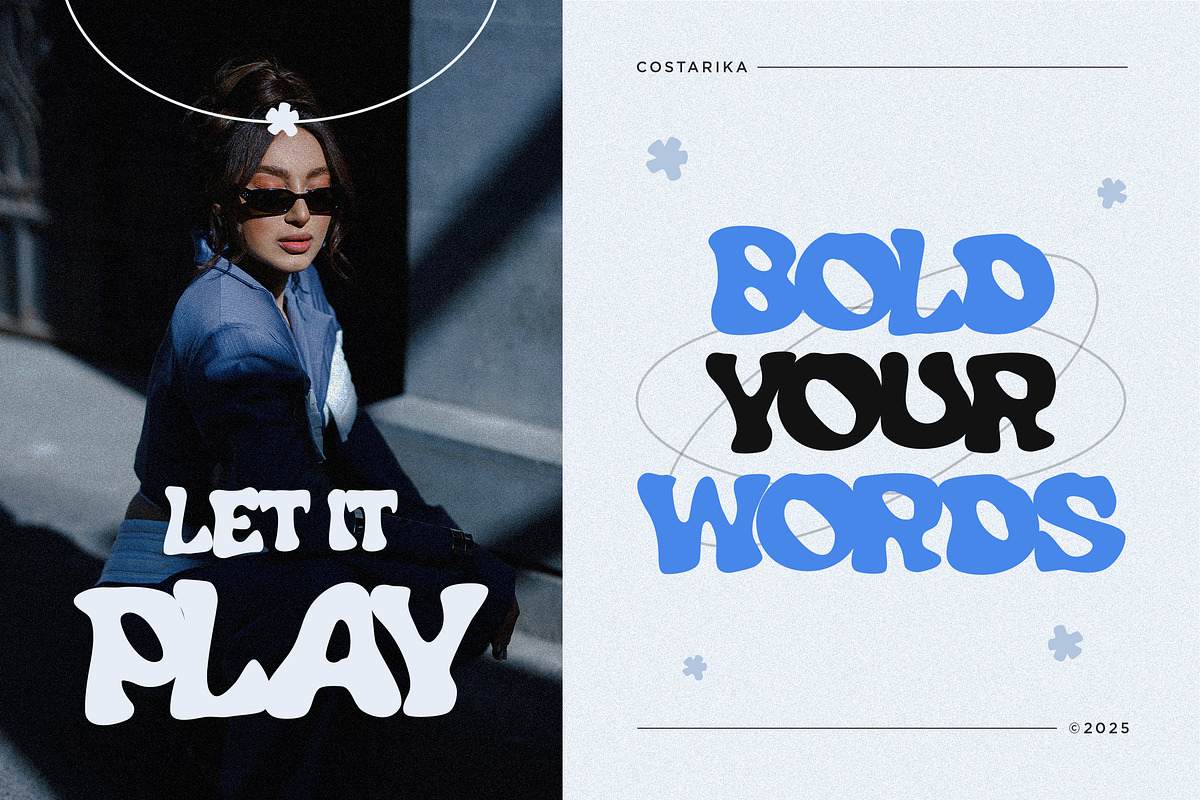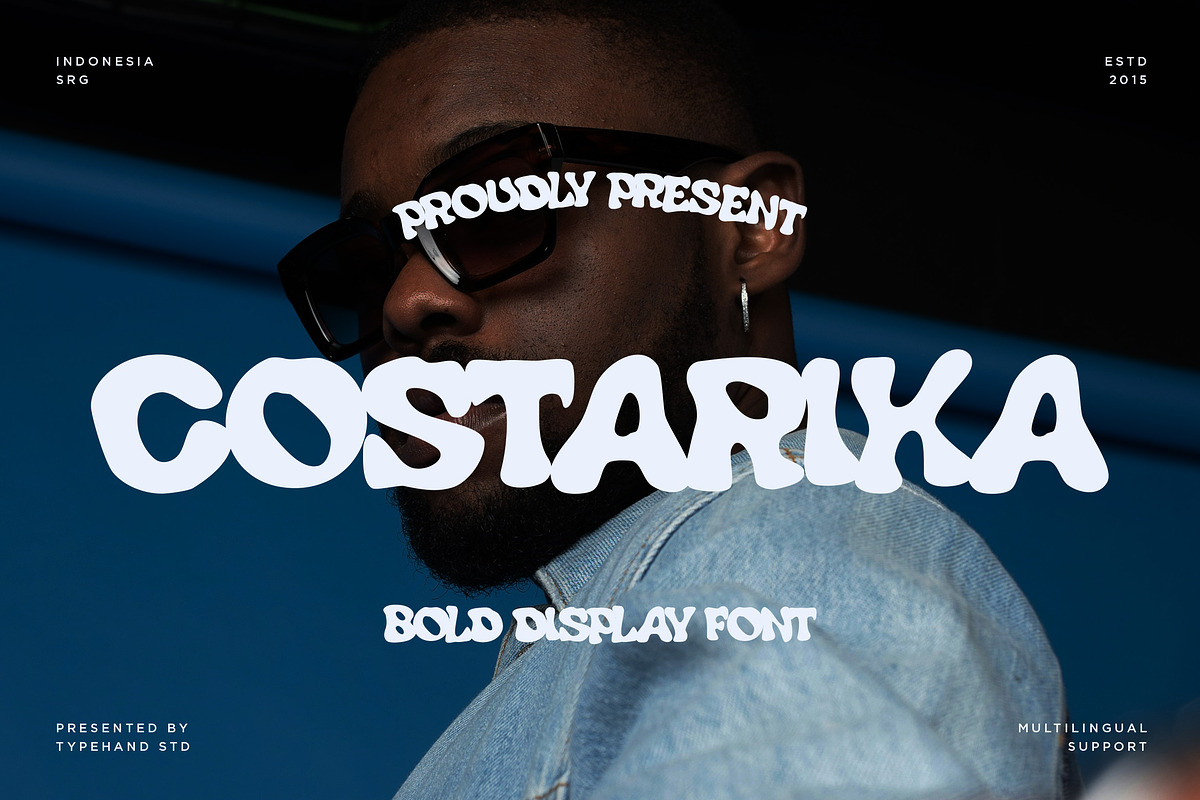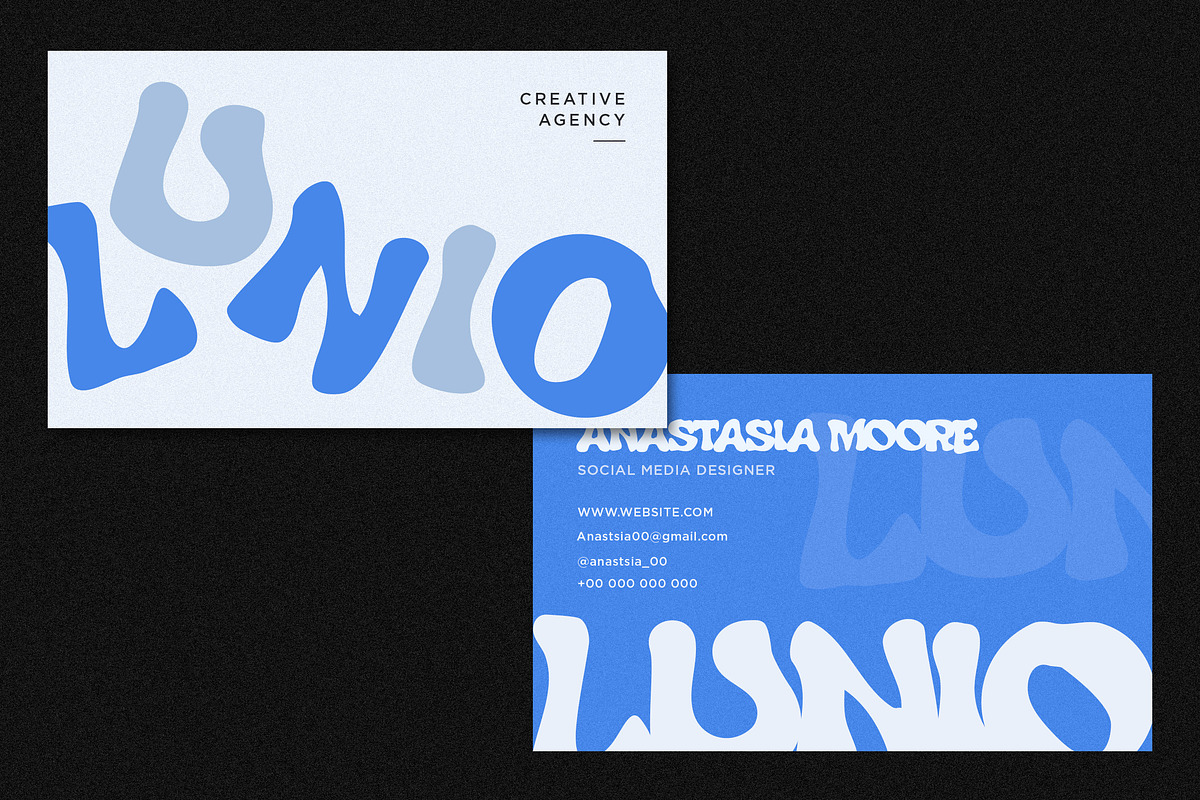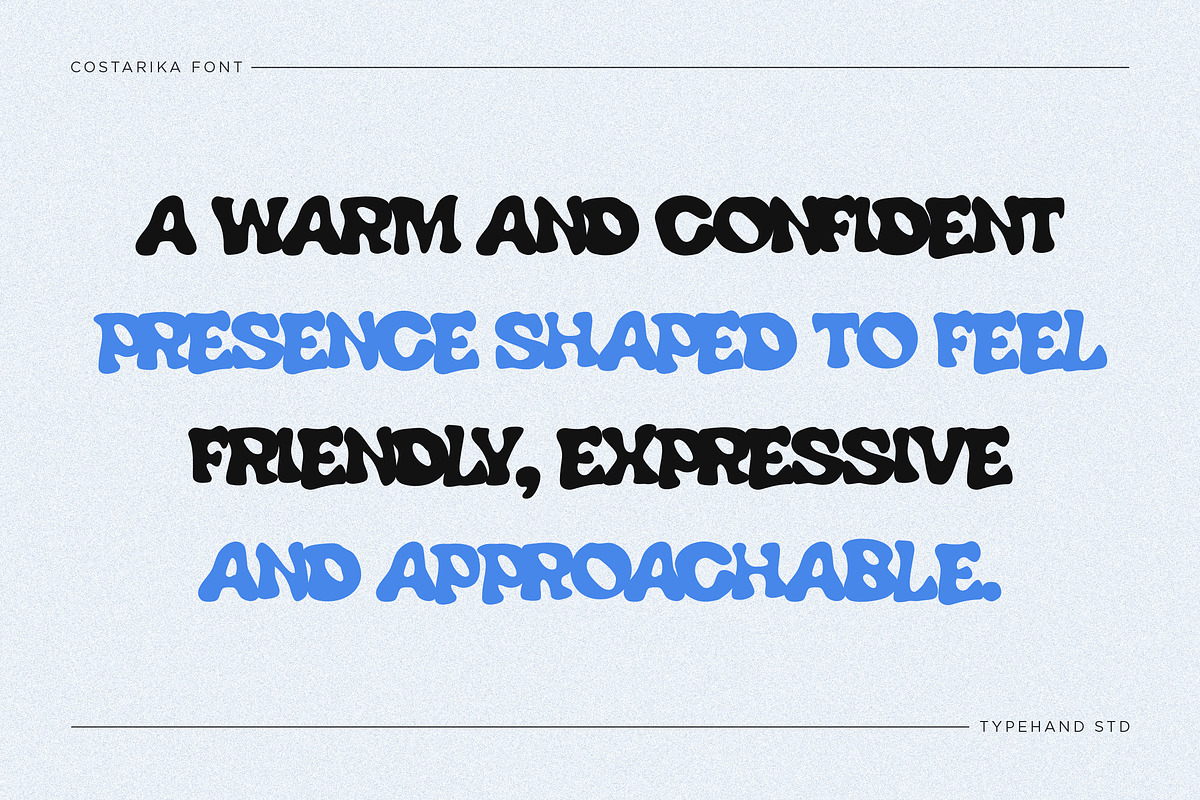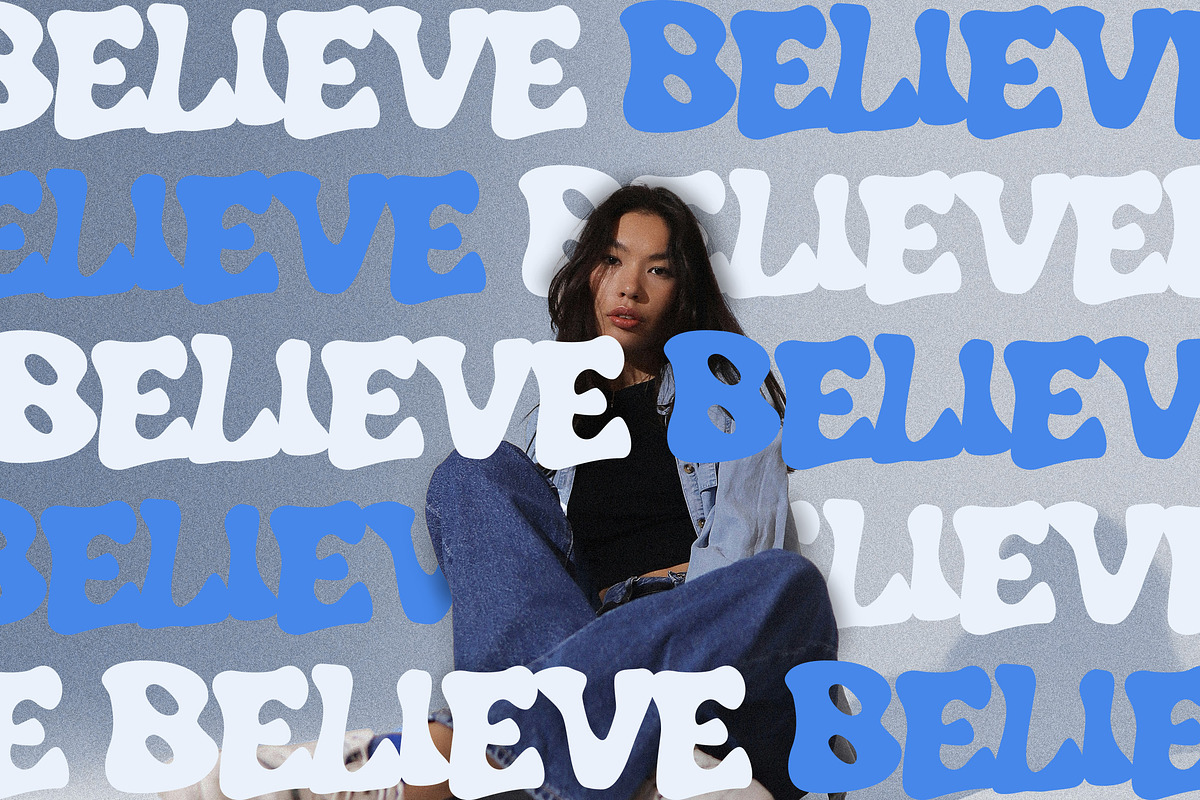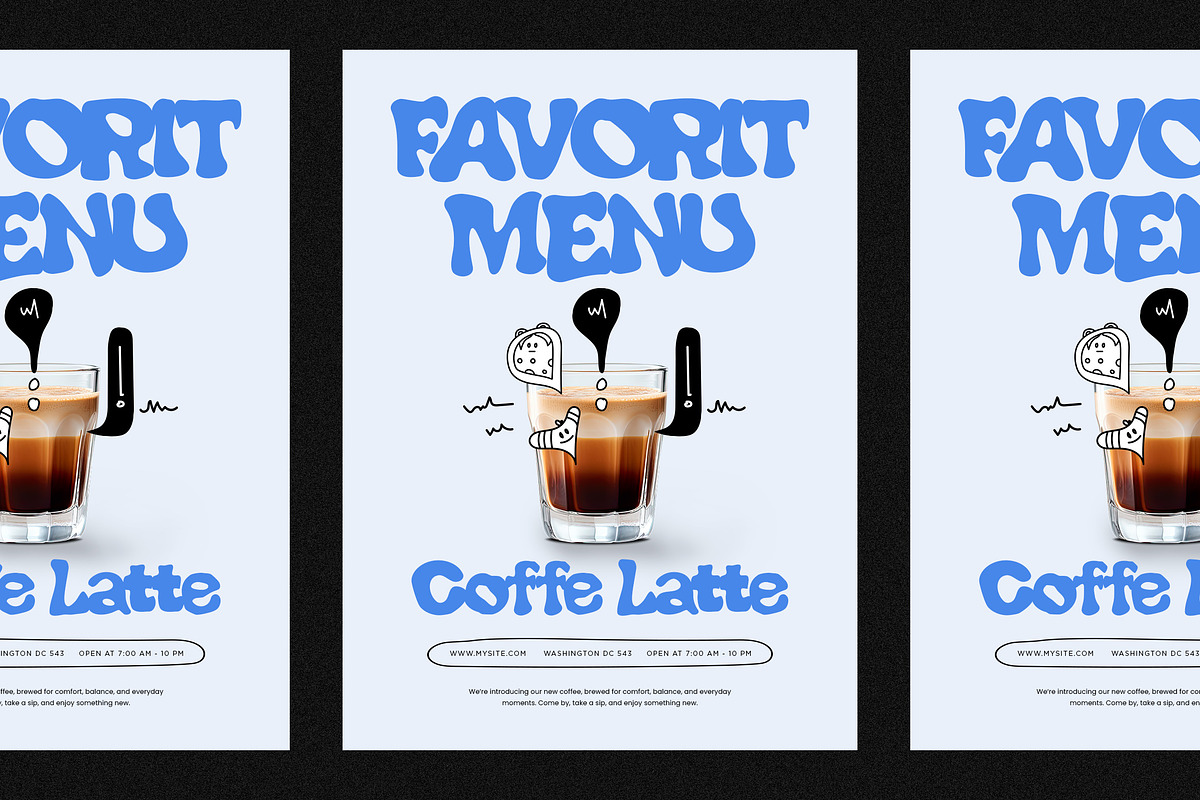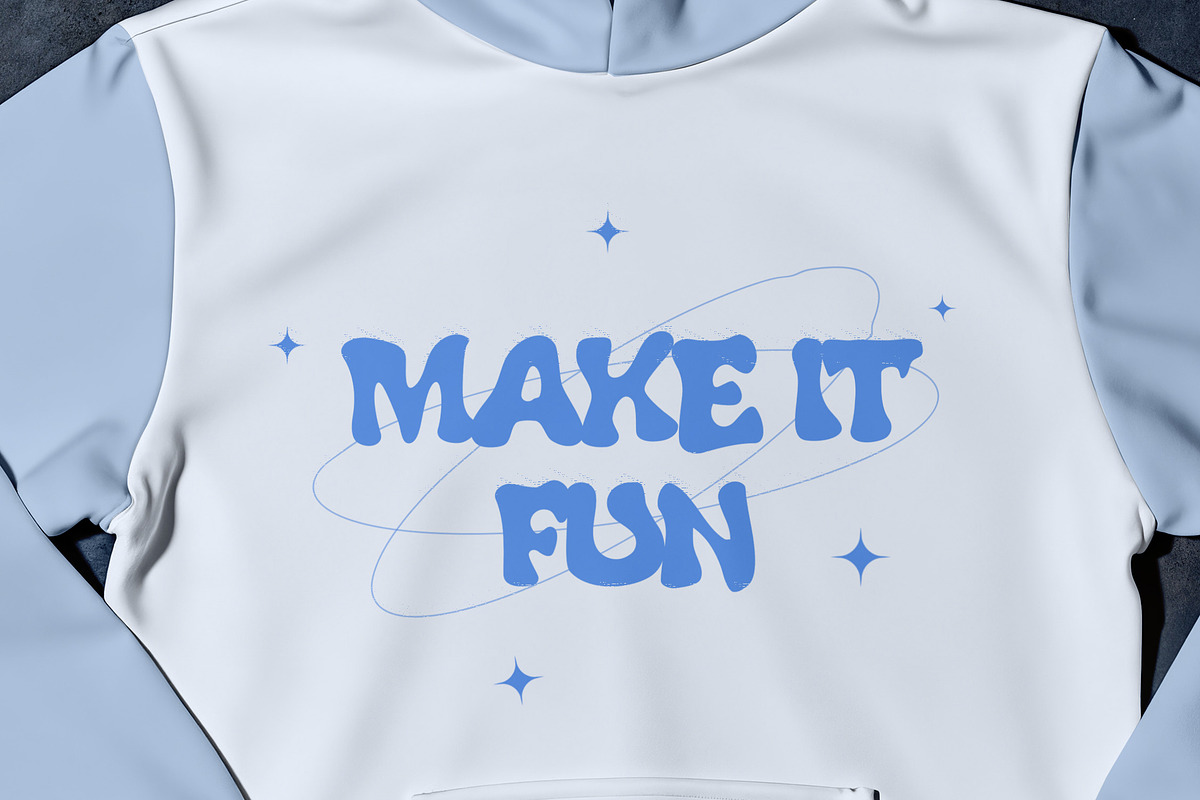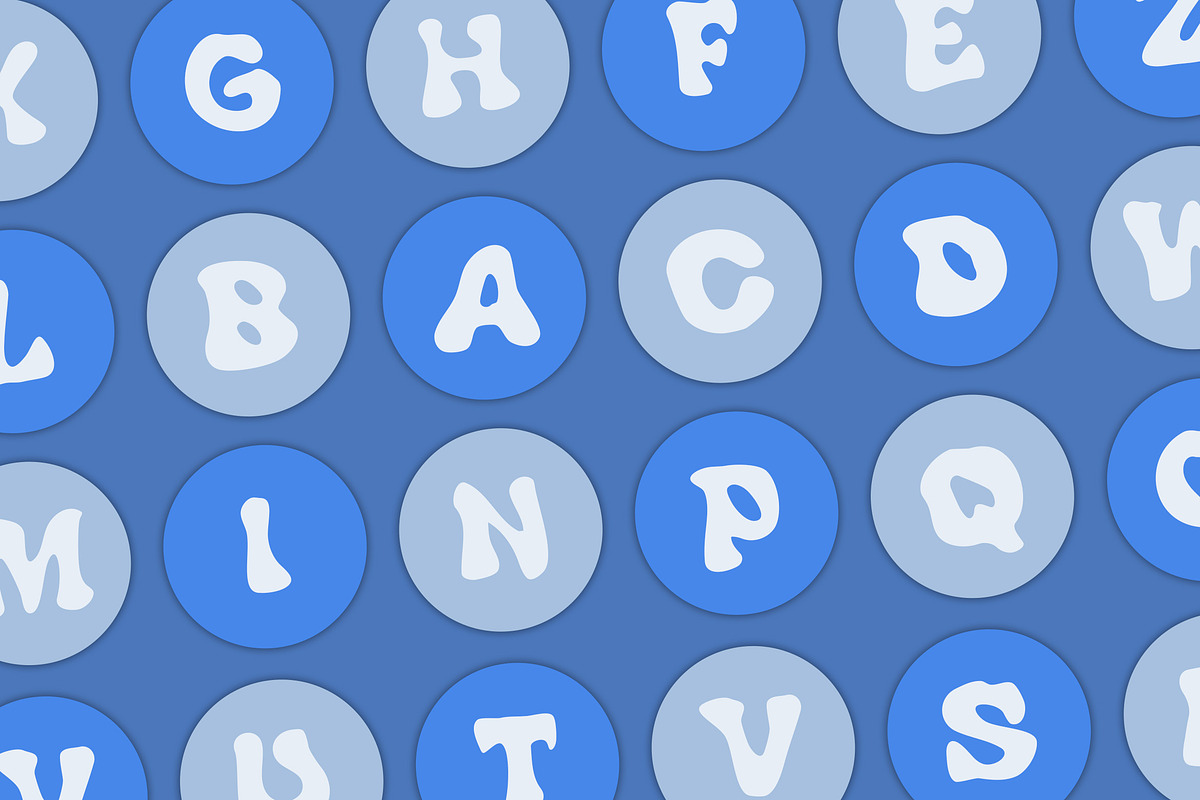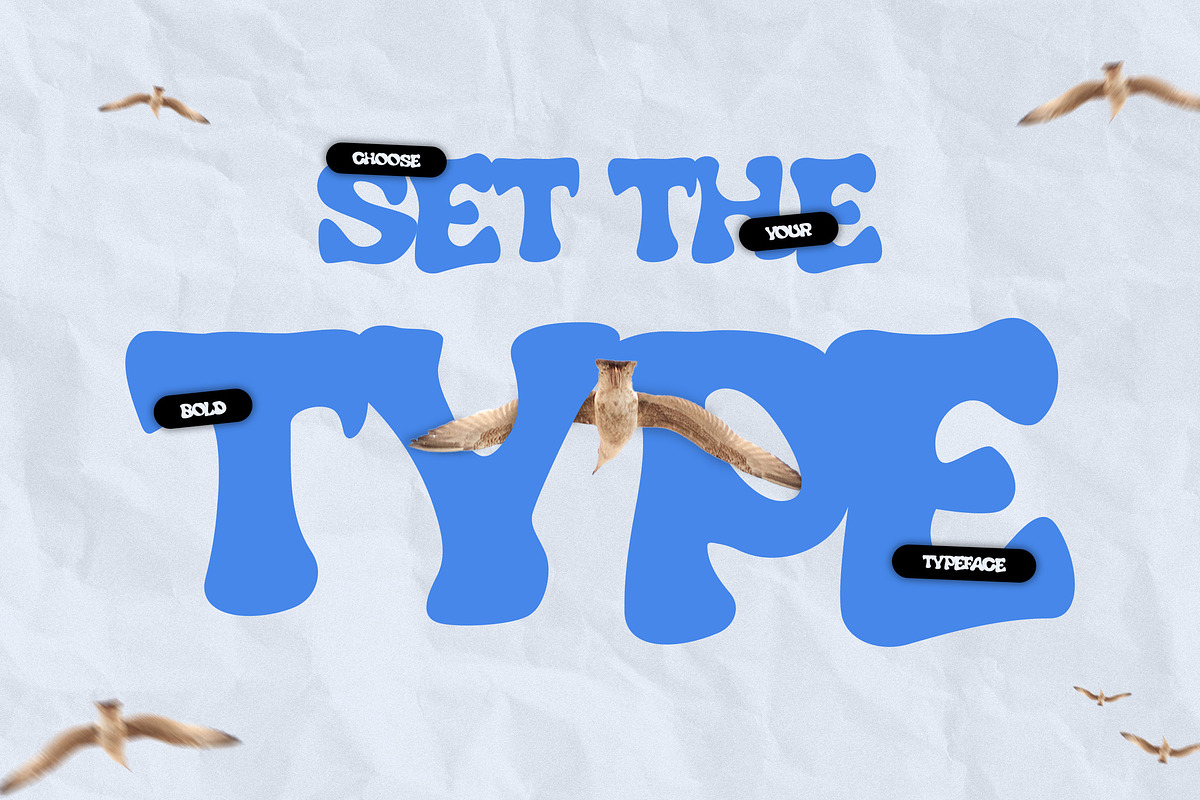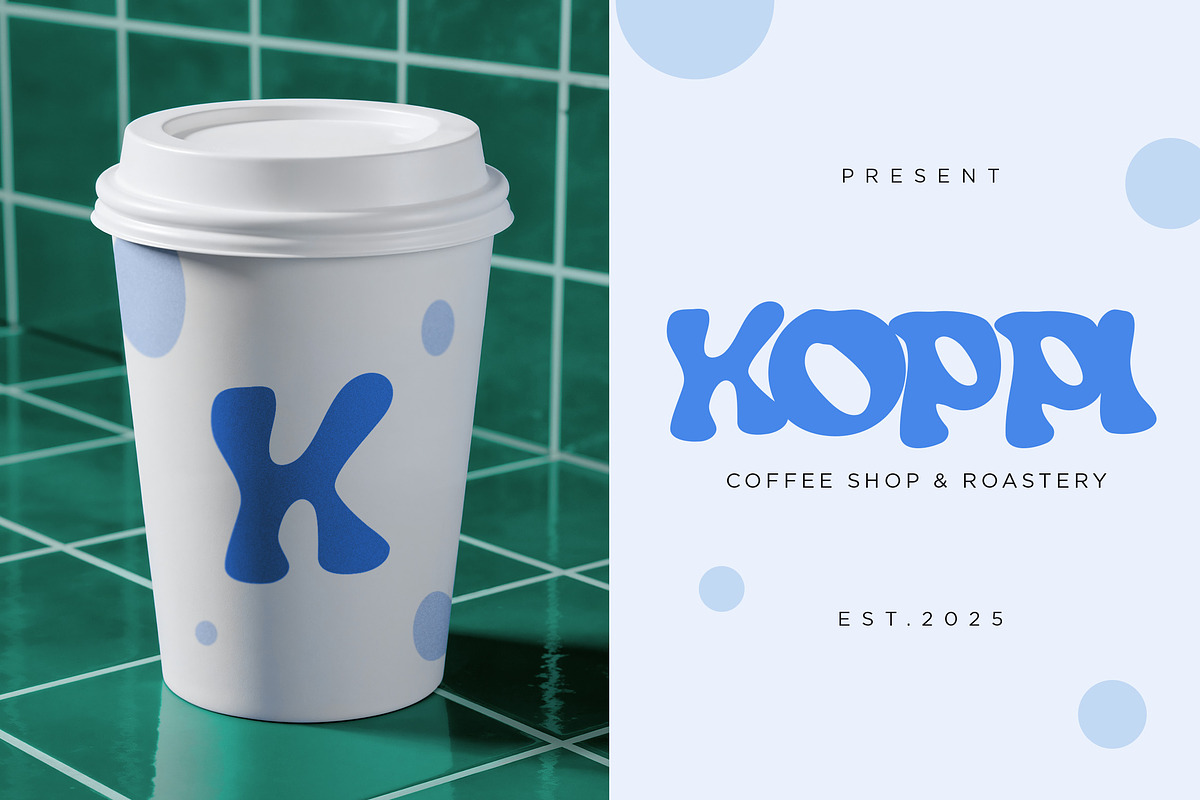
Costarika Bold Display
Costarika is a bold display typeface designed to deliver strong visual impact with a soft, organic personality. Built from thick, rounded forms and fluid curves, this typeface combines confidence with approachability, making it highly effective for modern branding.
The letterforms feature exaggerated proportions and slightly irregular shapes, giving the typeface a handcrafted feel without losing structure. This balance between control and spontaneity allows Costarika to stand out in crowded visual environments while remaining readable and versatile.
Its bold weight makes it particularly effective for headlines, logos, and large-format typography. Whether used in posters, packaging, or digital campaigns, the typeface creates a strong visual anchor that immediately draws attention. The tight spacing and large x-height help maintain clarity even in dense compositions.
Costarika performs especially well in lifestyle-driven branding. Coffee shops, fashion labels, creative studios, and modern retail brands can all benefit from its expressive tone. The rounded forms communicate friendliness and accessibility, while the bold presence ensures the design feels confident and contemporary.
The typeface also adapts well to merchandise applications such as apparel, stickers, and promotional materials. Its distinctive shapes remain recognizable across different mediums, from small-scale prints to large signage.
In editorial use, Costarika adds personality to covers, feature titles, and visual storytelling layouts. It works particularly well when paired with clean sans-serif body text, creating a contrast between expressive display and structured readability.
The font includes uppercase, lowercase, numerals, punctuation, and multilingual support, allowing designers to use it across a wide range of global projects.
Costarika is built for designers who want typography that feels alive, bold, and unmistakably modern—without becoming overly decorative or difficult to use.